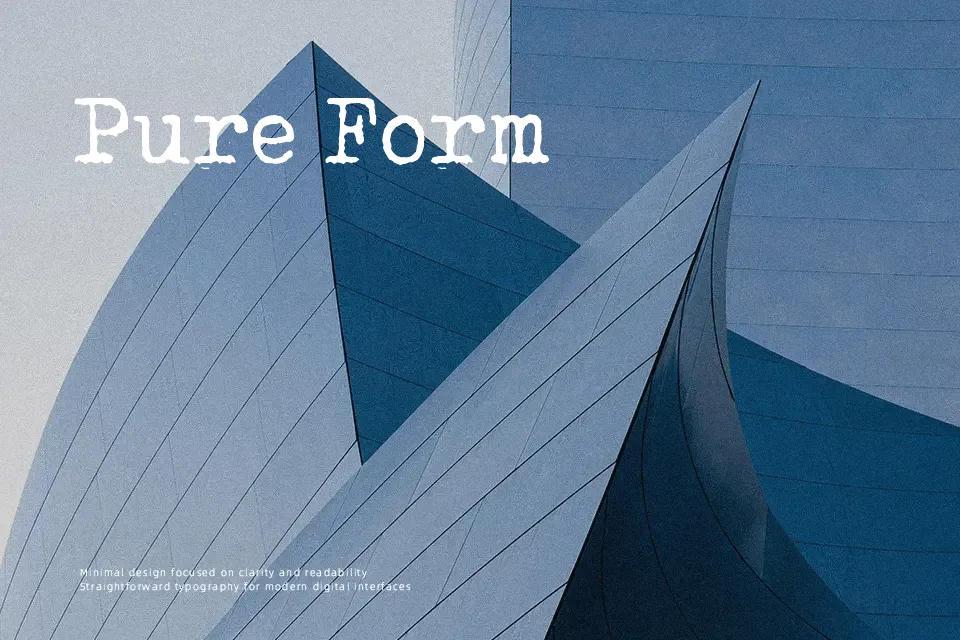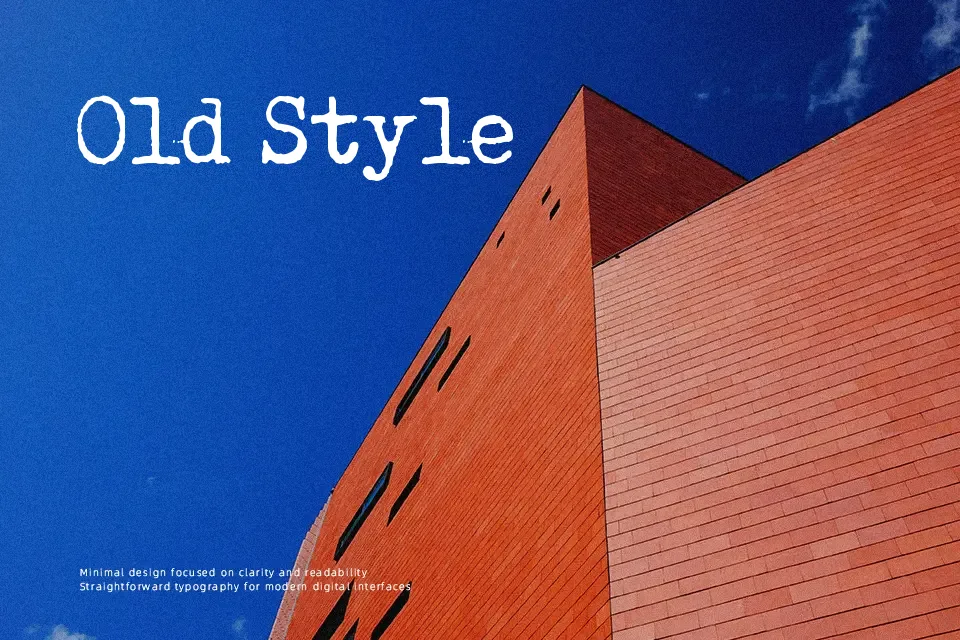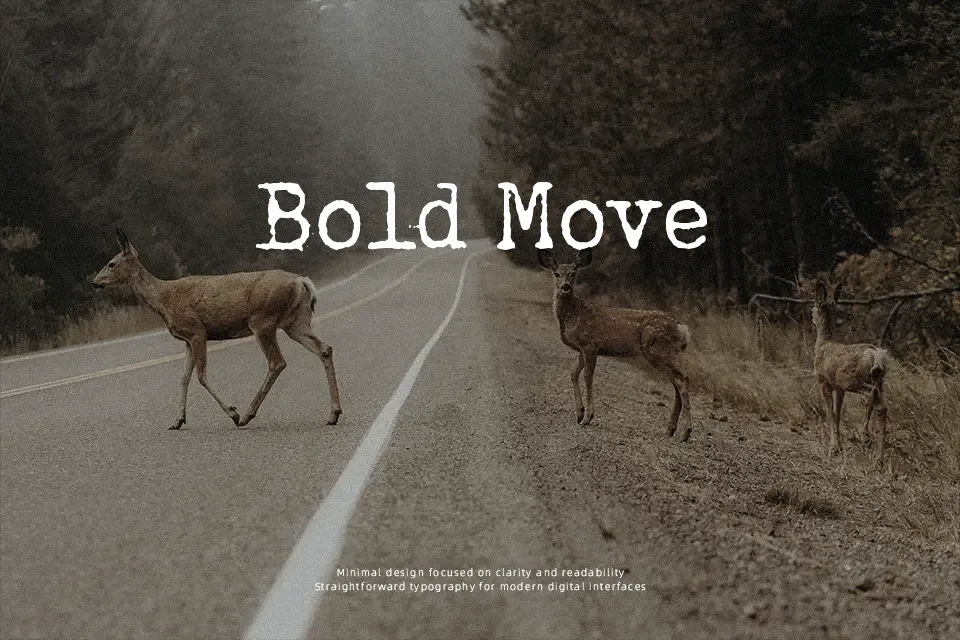
Tox Typewriter Font
Designed by Juha Korhonen
Tox Typewriter Font introduces a heavily weathered mechanical construction dominated by blunt slab serifs and pitted, ink-starved stroke boundaries. Its character proportions evoke traditional metal striking elements, while wide spacing prevents adjacent glyphs from colliding despite their noisy, expanded contours. Readability remains sharp and impactful across short headline arrangements, where the irregular ink bleeding imparts genuine tactile depth to mystery novel covers, themed escape room signage, and documentary graphics. Nevertheless, the pronounced edge erosion diminishes character clarity at reduced sizes, rendering the typeface impractical for lengthy editorial body text or compact navigational menus.
Best For: vintage book covers, retro poster headlines, escape room signage, themed event flyers
Not Ideal For: long paragraph text, corporate reports, mobile user interfaces, dense editorial layouts
Perfect for film, headline, and packaging, with a grunge and display style.